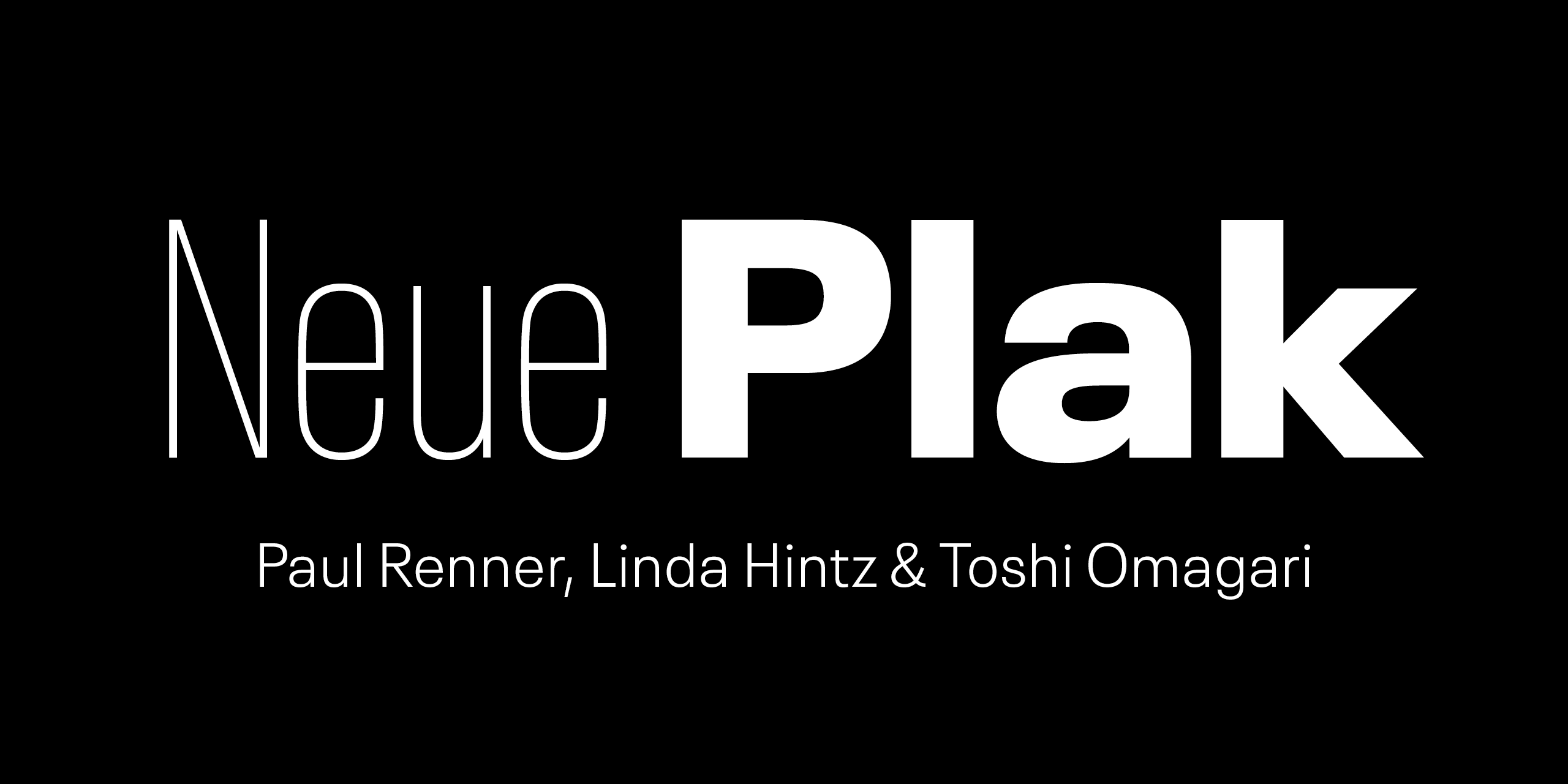
Neue Plak Font is perfect for poster design, exhibition graphics, architectural signage, museum displays, editorial headlines, book covers, brand identity systems, and contemporary advertising campaigns.
What makes Neue Plak Font exciting is its bold geometric construction that commands attention while maintaining exceptional legibility. This striking typeface draws inspiration from early 20th-century German poster lettering, combining historical authenticity with modern digital precision to create a powerful visual statement that stands out in crowded design environments.
The Neue Plak Font family includes various weights and condensed versions: Text, Regular, Medium, Bold, Black, and Extended variations, each offering distinct personality while maintaining the characteristic sharp angles and distinctive letterforms that define this remarkable typeface.
Neue Plak Font Free Download provides access to a typeface that bridges historical design traditions with contemporary applications. This distinctive sans-serif font features angular geometry and condensed proportions that maximize impact in limited space, making it ideal for headlines, display text, and attention-grabbing designs. The font's robust construction ensures excellent performance across print and digital media, while its unique character shapes add personality to corporate communications, cultural projects, and creative campaigns. Whether designing event posters, magazine covers, or brand materials, this font delivers commanding presence with its bold aesthetic and professional craftsmanship that elevates any project's visual hierarchy.